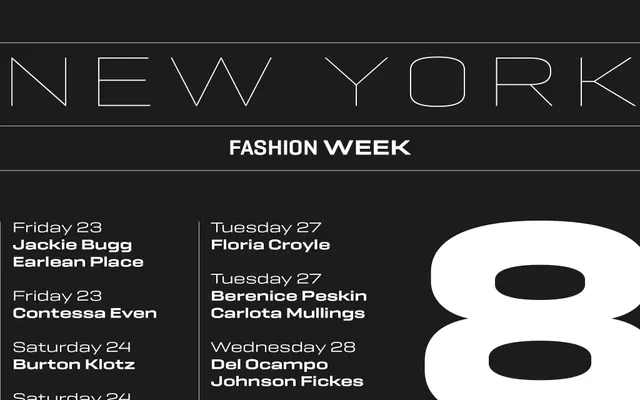
Geogrotesque ES
The expanded-width series of Geogrotesque, offering three progressively wider cuts from 120% to 200% of the standard width across seven weights.
Covering Wide, Extended and Expanded widths, this series complements the existing Geogrotesque Condensed cuts to form a complete width system. The Wide variant is proportioned for body text use, whilst Extended and Expanded are suited to headlines and display settings. All three widths come in seven weights from Thin to Bold, each with matching italics, totalling 42 styles.
A geometric grotesque expanded series, spanning three width variants from Wide to Expanded, intended for both text and display use as part of the broader Geogrotesque superfamily.